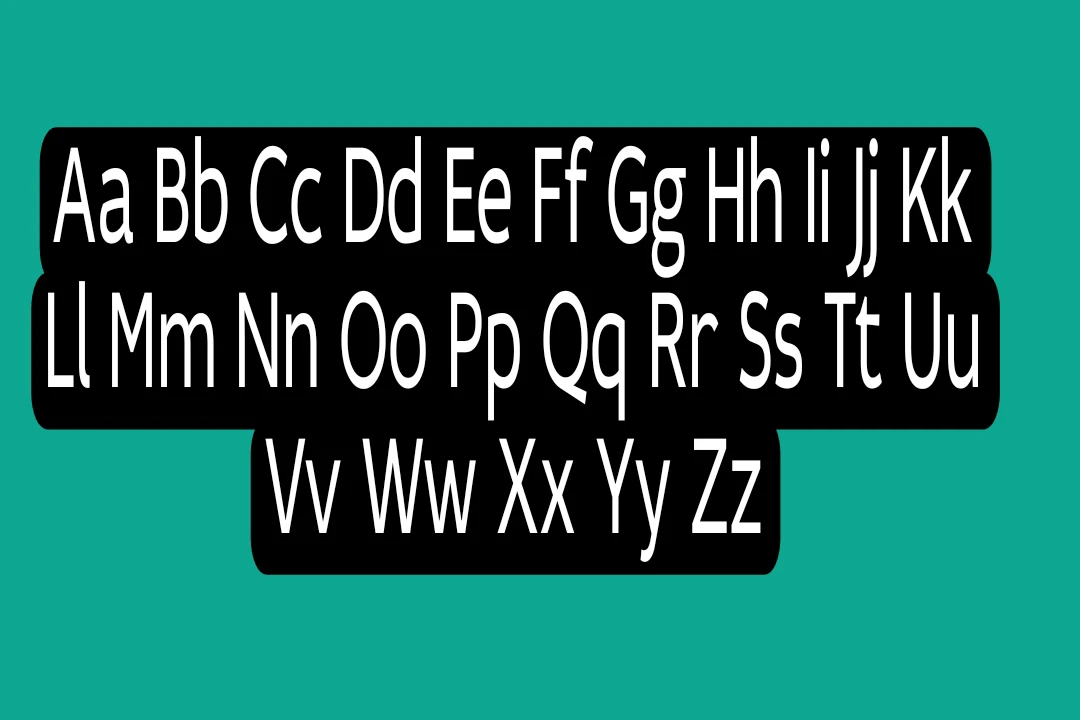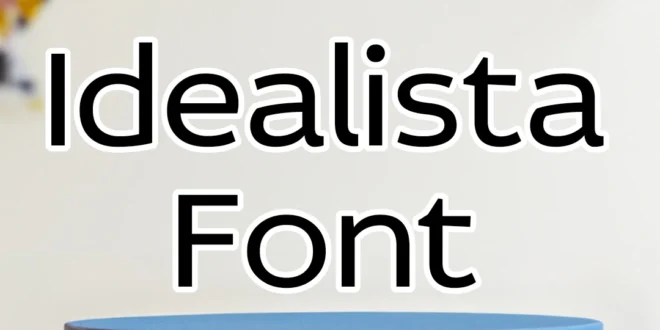
Idealista is a modern sans-serif font designed to give a clean, sleek, and contemporary look. It is popular for use in professional branding, websites, and editorial designs due to its versatility and easy readability.
The font has a geometric style with open letterforms that provide a spacious feel, making it ideal for both print and digital media.
Idealista comes in 12 styles, including Thin, Thin Italic, Light, Light Italic, Medium, Medium Italic, SemiBold, SemiBold Italic, Bold, Bold Italic, Black, and Black Italic.
It includes 428 glyphs per font, offering a range of OpenType features such as ligatures, and stylistic alternates.
Uses of Idealista Font
It is ideal for creating eye-catching magazine titles, typographic logos, and propagandist posters due to its expressive and dynamic design.
Its unique blend of sans-serif, slab-serif, geometric, and calligraphic elements gives it a lively and distinctive character that stands out in display settings.
You can pair it with many other unique fonts; the texture most similar to this typeface is Gill Sans Font. The font’s smooth and round character set, combined with various stylistic details, adds a special, voluptuous quality to the text, making it suitable for projects that aim to convey a vibrant and energetic feel.
| Designer | Tomas Brousil |
| Style | Sans Serif |
What is the Idealista Font?
It is a contemporary sans-serif typeface designed by Tomas Brousil for the Suitcase Type Foundry. It is known for its clean lines and versatile styles, making it suitable for a wide range of design projects, including branding, packaging, and web design.
What styles are available in the Idealista Font family?
The Idealista Font family includes a variety of styles, such as Thin, Light, Medium, Semi Bold, Bold, and Black, each available in both regular and italic versions.